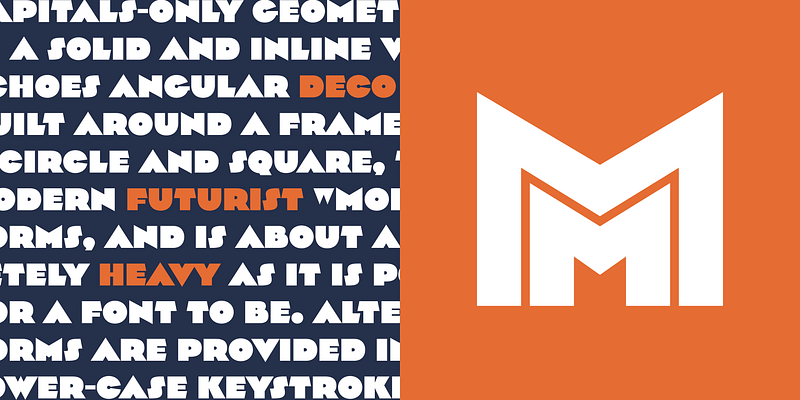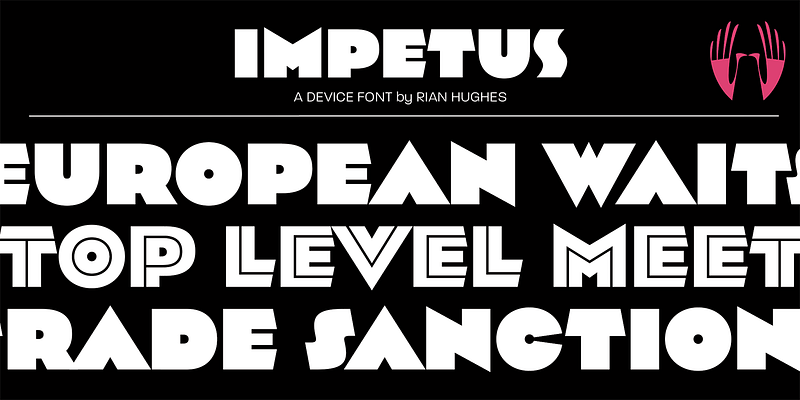
Impetus
An angular heavyweight for maximum impact. Includes a decorative inline.
Type, design and imagery by English illustrator and typographer Rian Hughes.